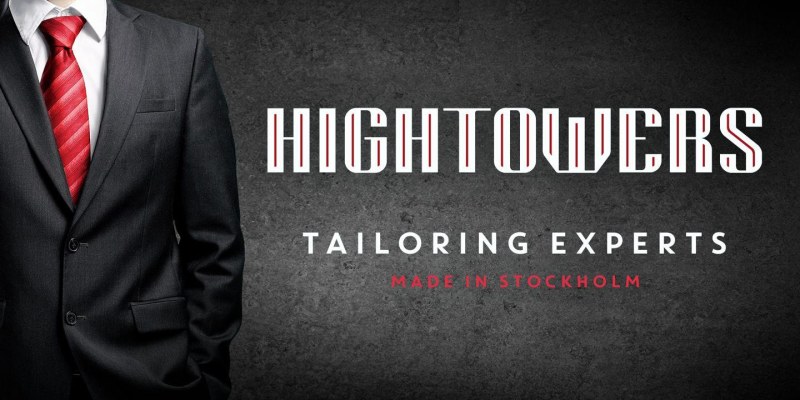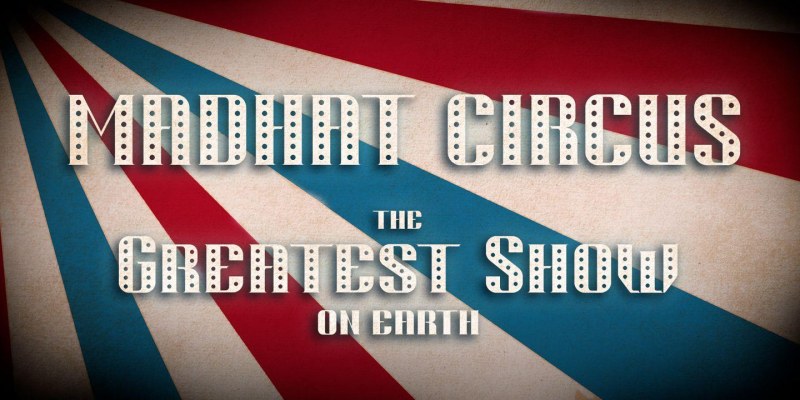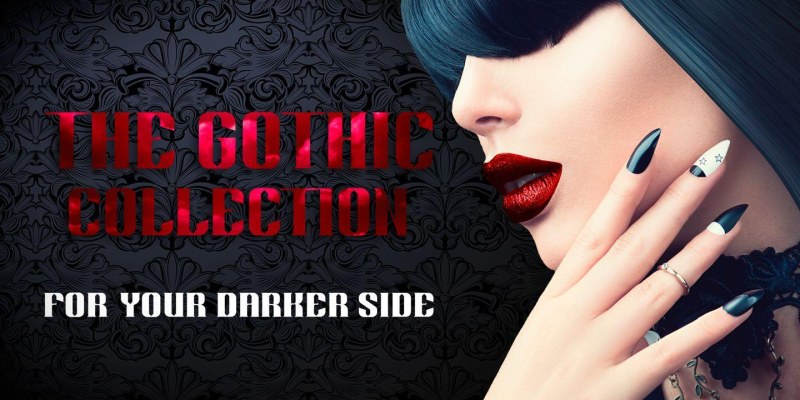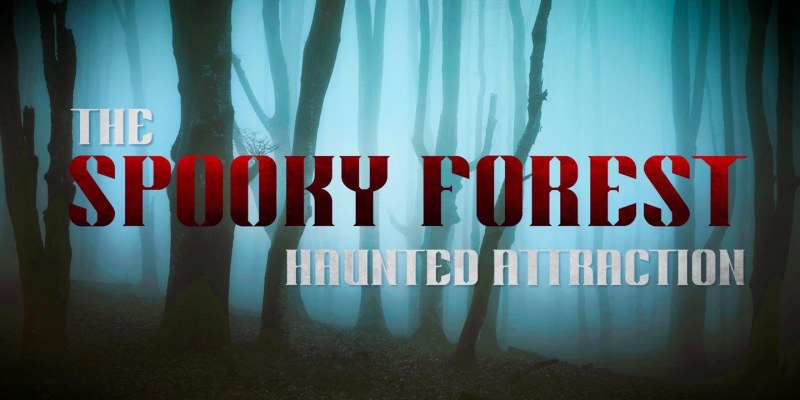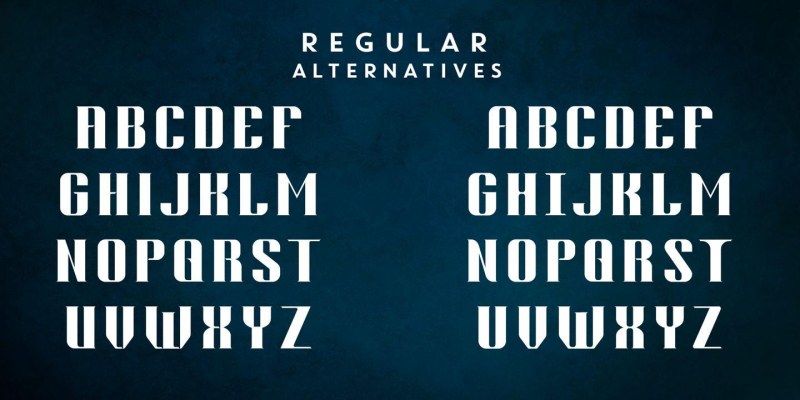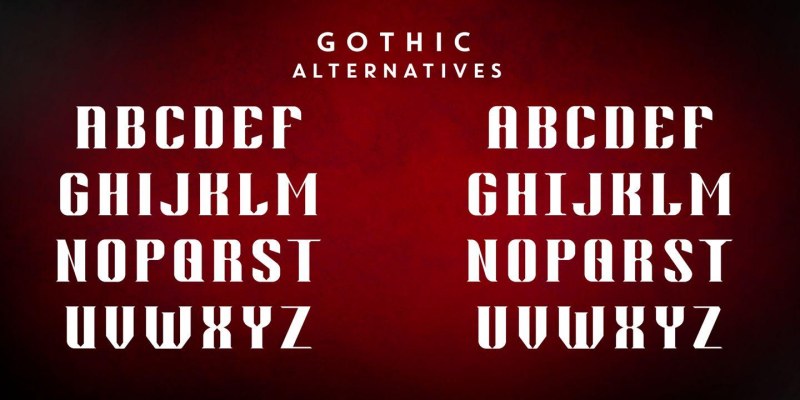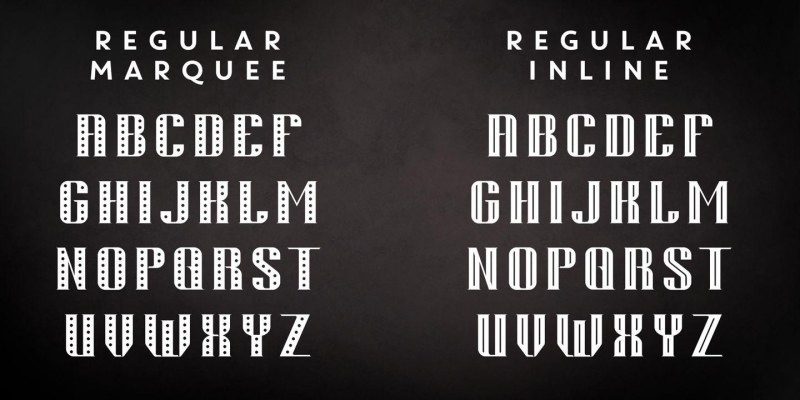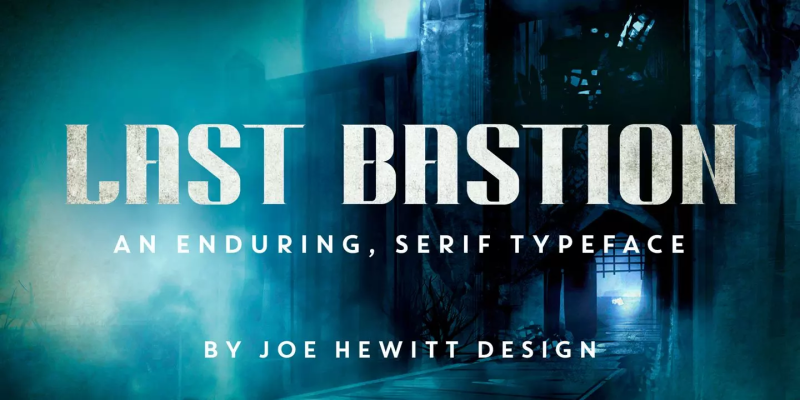
Last Bastion Font
Last Bastion is a strong, resolute serif font. The original inspiration came from the idea of an impenetrable medieval fortress that has stood the test of time. Large stone towers and fortifications are reflected in the font’s bold stems.
The sans serif font offers a more modern and clean look, while the Gothic font shows the typeface’s darker side. Last Bastion lends itself to branding, billboards, signage and industry to name a few. The family also includes marquee and inline versions of the regular font. Separate marquee and inline fonts are also available to mix and match with the sans serif and gothic fonts. The glyph set includes all languages covered in Basic Latin, Latin-1 Supplement and Latin Extended-A scripts.
Where Last Bastion Font works best
Last Bastion Font is built for size: event posters, hero headlines and billboard-style layouts.
High contrast display type like Last Bastion Font reads instantly in thumbnails and motion graphics.
What is Last Bastion Font good for?
Last Bastion Font is a Display Fonts typeface tagged Bold, Branding, Clean, Display. It works well for headlines, logos, posters, social media graphics and branding projects that need a distinctive display fonts look.